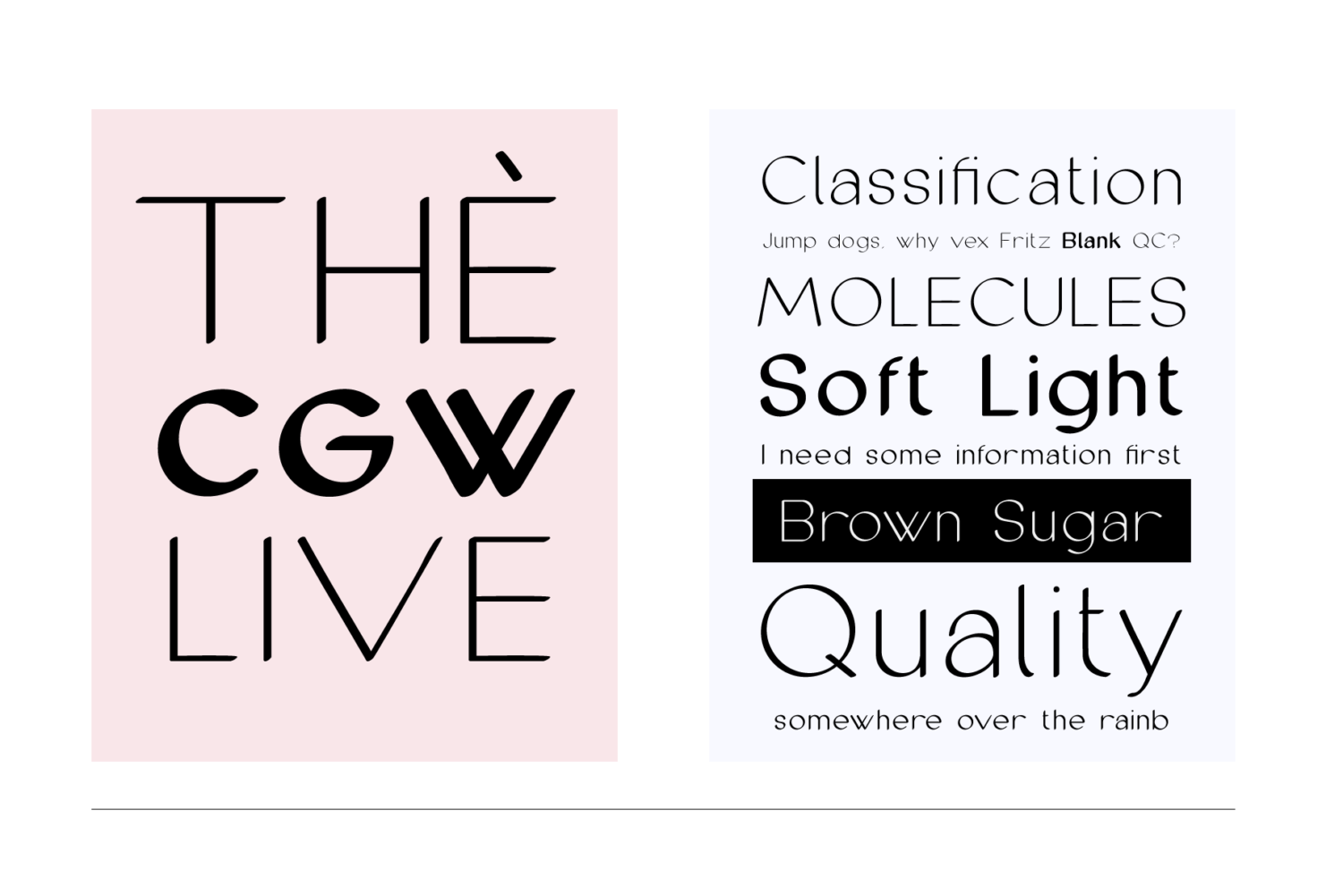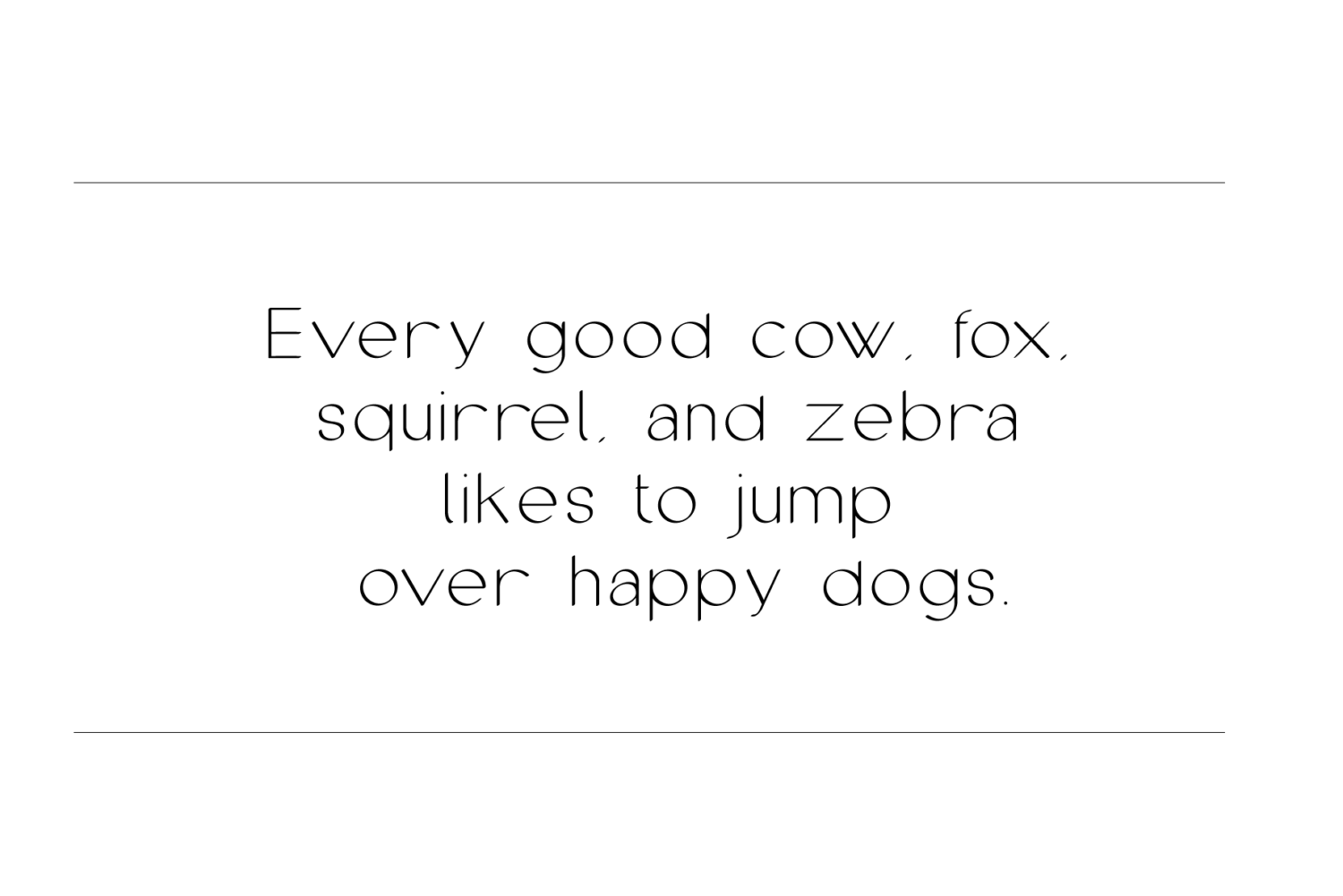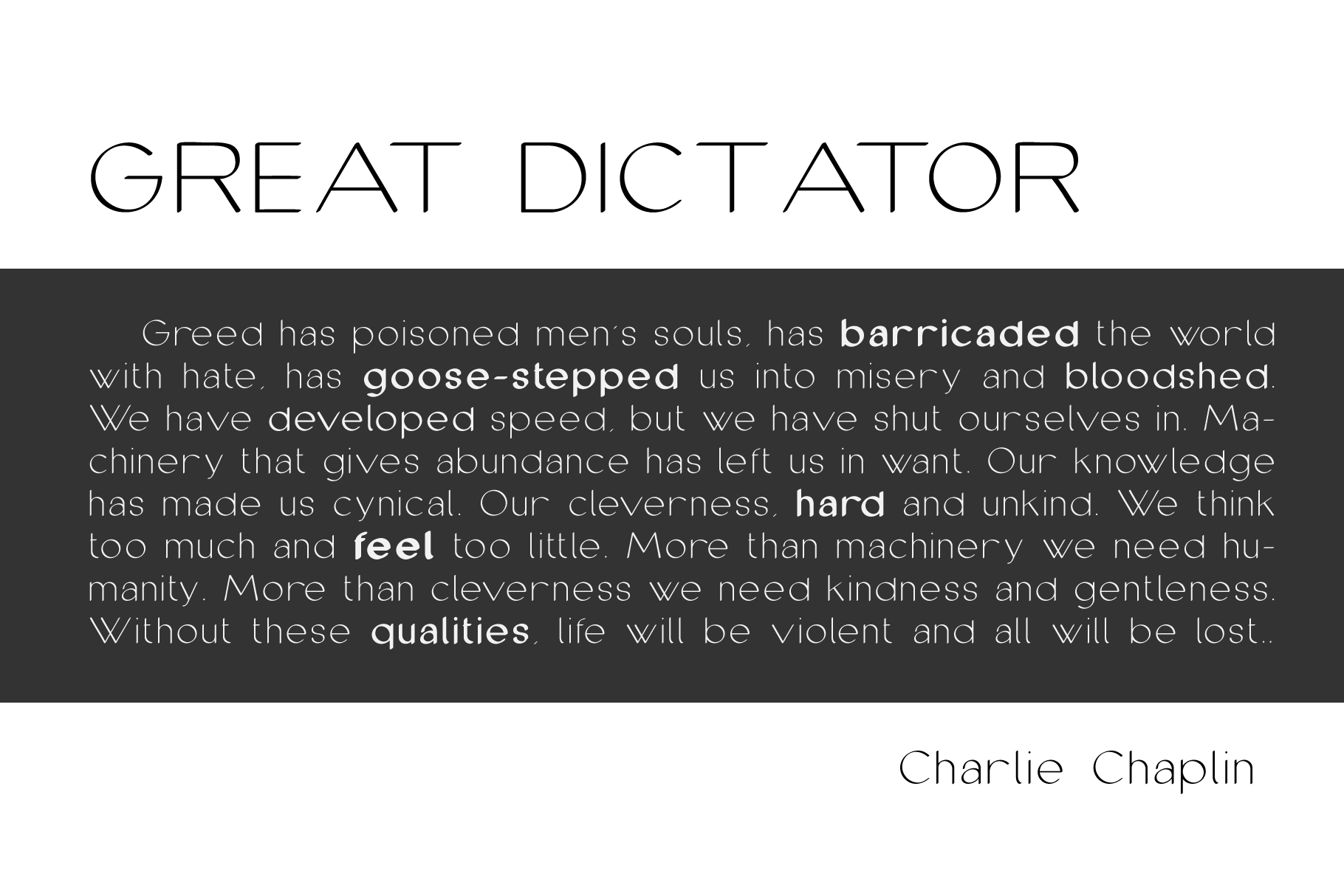
Cofley Free Font
Cofley Free Font is modern, elegantly rounded sans serif typeface. Consisting of 4 weights from Thin to Black with every 331 glyphs. Cofley Free Font contains Central Europe multi-lingual glyphs. It is suitable for display and reading purposes and has a modern and elegant touch. This free typeface was designed by a talented Sigit Nur Wicaksono. If you like it don’t forget to check out the full version.